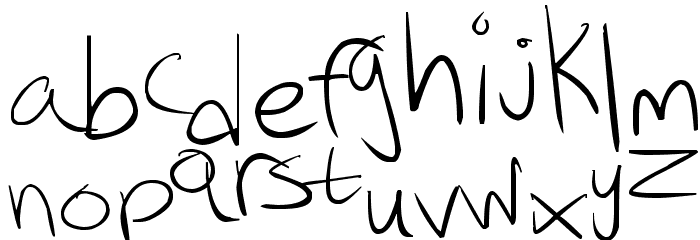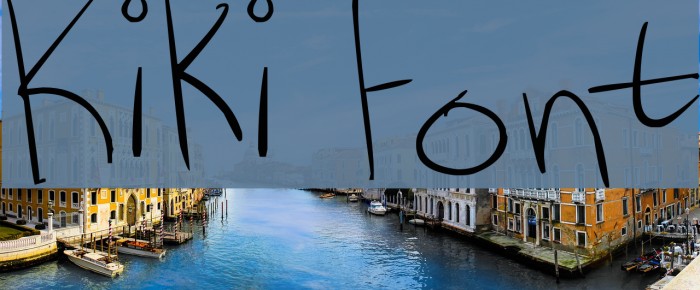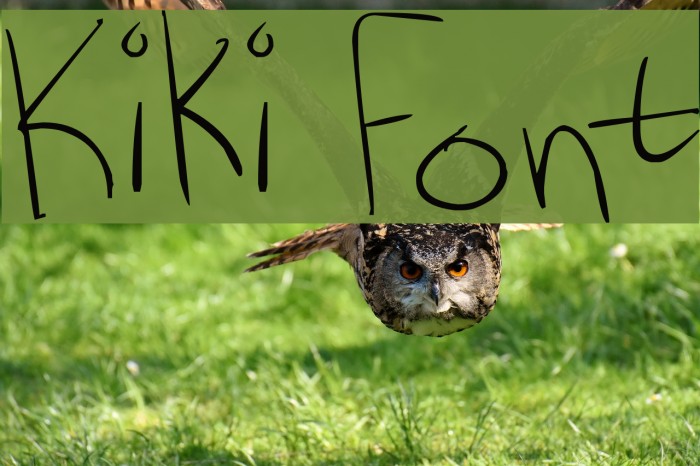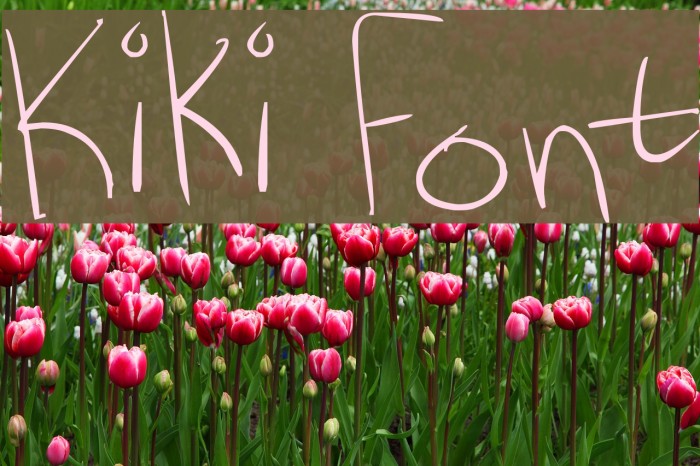
Kiki Font
This font features a playful and casual handwritten style, characterized by its loose and flowing strokes. The letters are slightly irregular, adding a personal and informal touch. The uppercase and lowercase letters maintain a consistent style, with rounded edges and a slight slant, conveying a sense of movement and spontaneity. The numerals and special characters follow the same aesthetic, ensuring a cohesive look across all glyphs. This font's whimsical nature makes it ideal for projects that require a friendly and approachable feel.
A playful, casual handwritten font with flowing strokes and a personal touch.
- Proposed Projects: Greeting cards, children's books, casual branding, personal blogs, and social media graphics.
- Overall Style: Casual
- Use Case: Logos, Headlines, Informal text